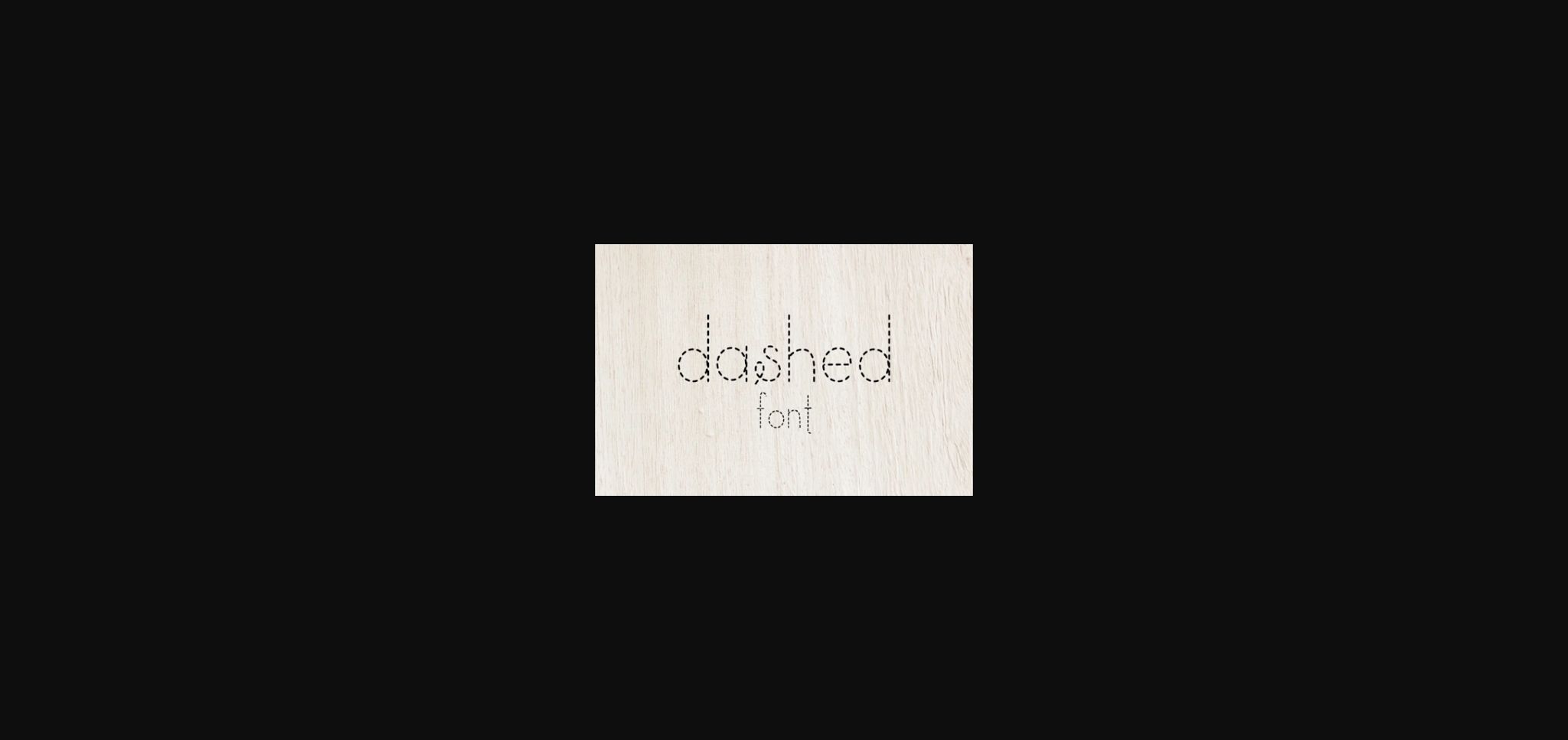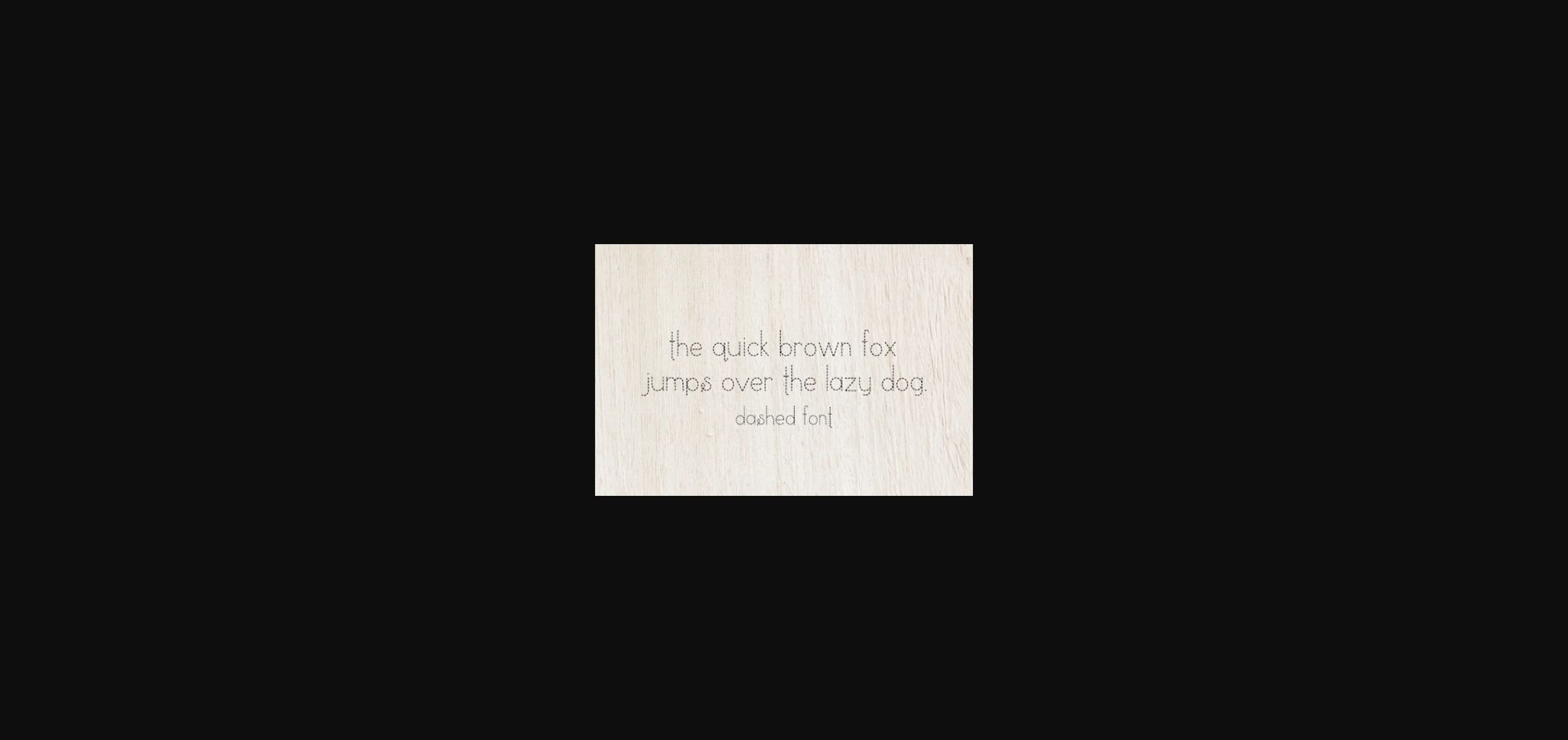
Dashed Font
About Dashed Font
Dashed is inspired by classic typography and brings its own unique style to any design project. It will complement any design need perfectly with its perfectly balanced mix of the smooth and sharp!